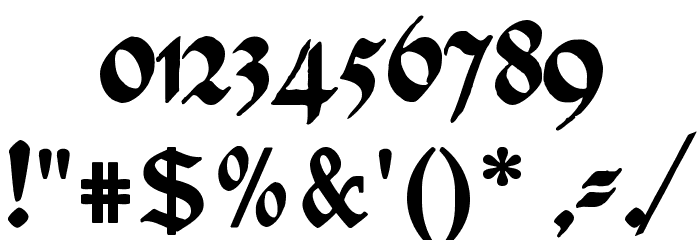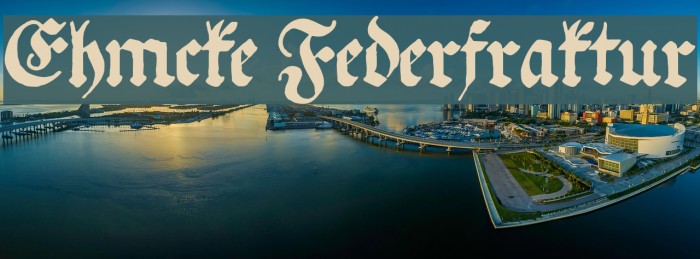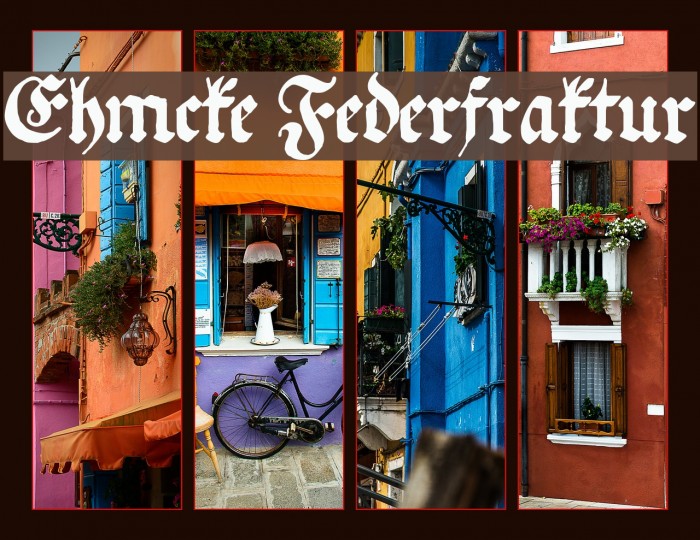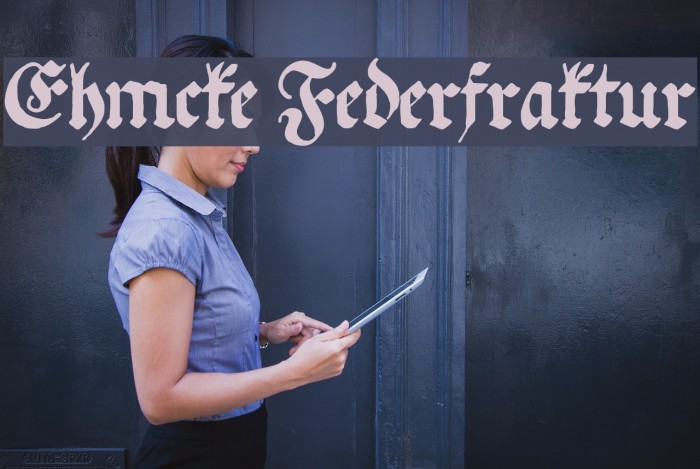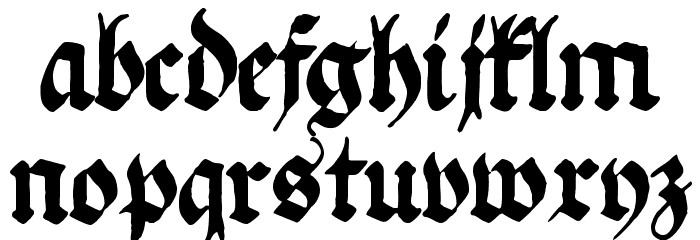
Ehmcke Federfraktur Font
Ehmcke Federfraktur Description
This font is a striking example of Blackletter style, characterized by its intricate and ornate letterforms. Each character is crafted with sharp, angular strokes and elaborate curves, giving it a distinctly medieval and gothic appearance. The uppercase letters are particularly elaborate, with flourishes that extend beyond the main body of the letter, while the lowercase letters maintain a more compact and cohesive form. The numerals and special characters are equally detailed, maintaining the overall aesthetic of the font. This font exudes a sense of tradition and historical depth, making it ideal for projects that require a touch of classic elegance and sophistication.
An ornate Blackletter font with intricate, gothic-inspired letterforms from Gothic fonts.
- Font: Ehmcke Federfraktur
- Proposed Projects: Ideal for historical documents, wedding invitations, book covers, and branding that requires a classic and elegant touch.
- Character Spacing: Tight
- Overall Style: Vintage
- Use Case: Logos, Headlines, Decorative text